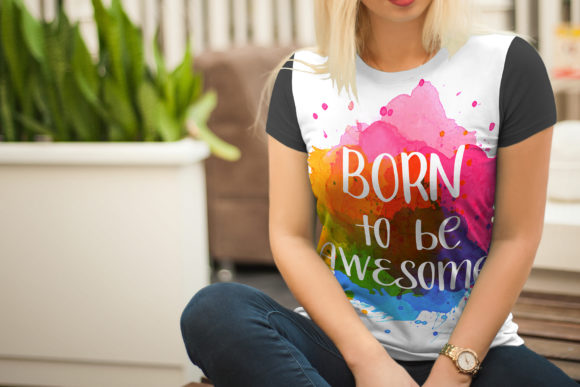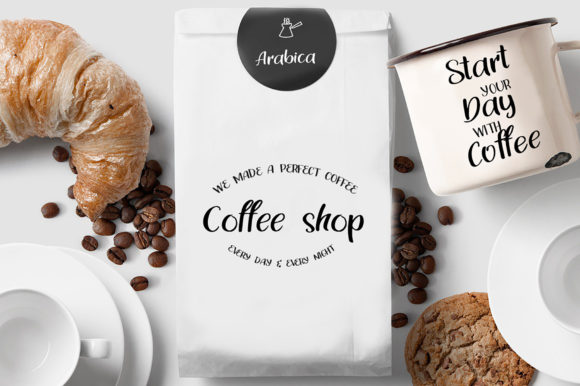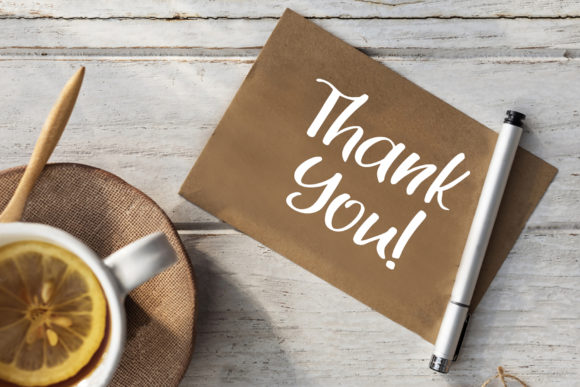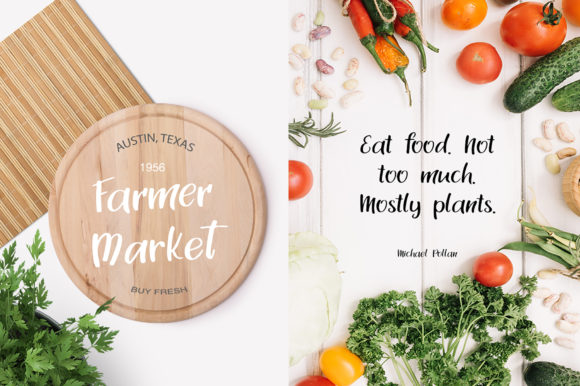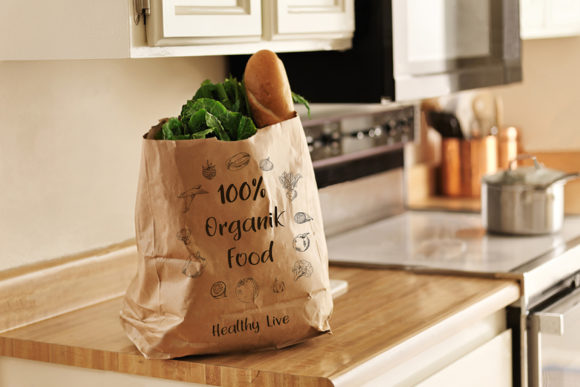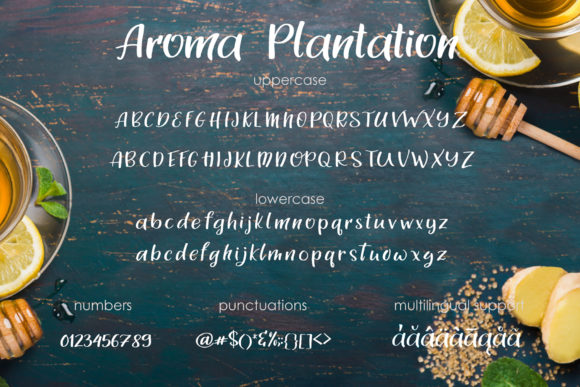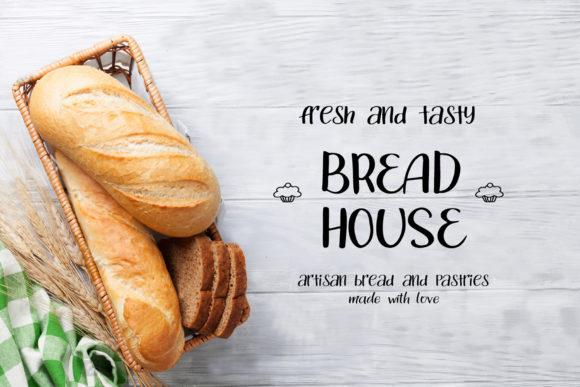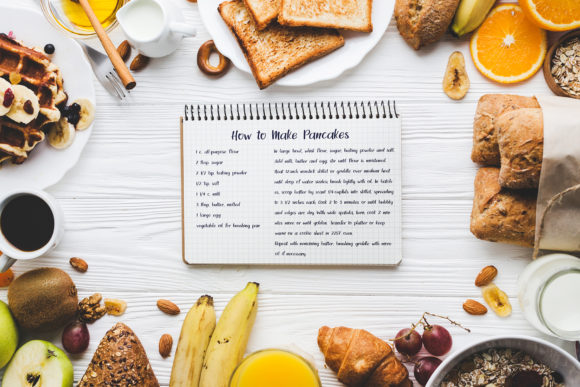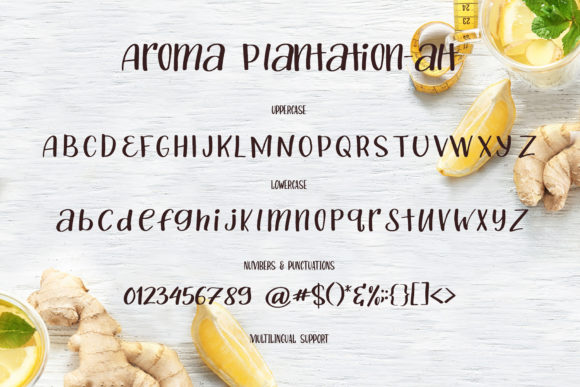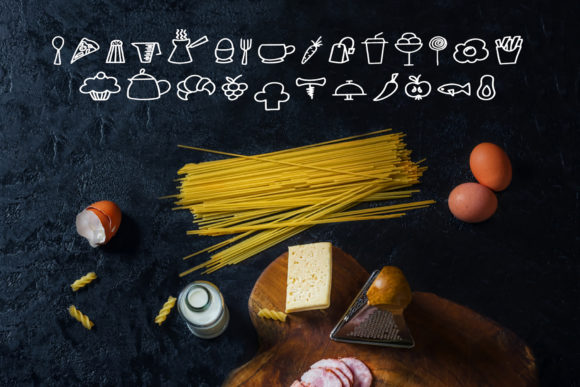
Aroma Plantation Duo Font
The Aroma Plantation is a fancy handlettering typeface with a clear style, good mood, and dramatic movement. It’s allowing you to create beautiful hand-made typography in an instant.
Also included are 26 characters about food. With this duo, you are able to create a brand for your cafe or restaurant, or just decorate your website or blog about recipes.